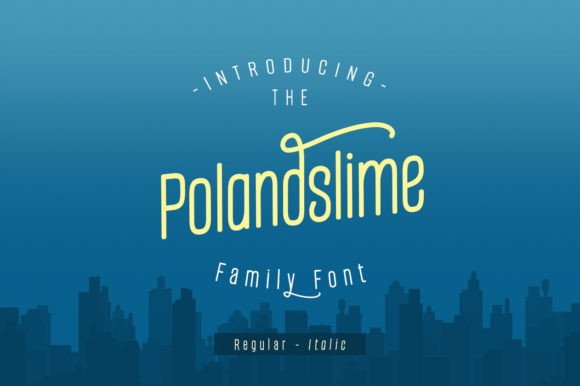
Dive into the world of visual storytelling with Polandslime Font, the ultimate sans serif typeface meticulously crafted to bring your creative visions to life. Experience the symphony of elegance and functionality as Polandslime dances across your designs, leaving a trail of unforgettable impressions.
Unleash your imagination and let Polandslime be your muse. Its clean lines and graceful curves evoke a sense of sophistication, while its sturdy structure ensures readability and clarity in even the smallest of spaces. Whether you're crafting captivating posters, designing logos that speak volumes, or creating music covers that resonate with rhythm, Polandslime is your trusted ally.
Step into the spotlight with Polandslime, the font that transforms ordinary designs into masterpieces. Its versatility knows no bounds, effortlessly adapting to a myriad of creative projects, from clothing that exudes style to cool design projects that push the boundaries of innovation. With Polandslime, your creativity has no limits.
Don't settle for ordinary fonts that blend into the background. Embrace the extraordinary with Polandslime, the font that demands attention and leaves a lasting impact. Seize this opportunity to elevate your designs to new heights, creating something truly outstanding that will captivate and inspire.
Make Polandslime your font of choice today and embark on a creative journey like no other. Unleash your inner artist, let your imagination soar, and witness the transformative power of Polandslime as it breathes life into your designs.